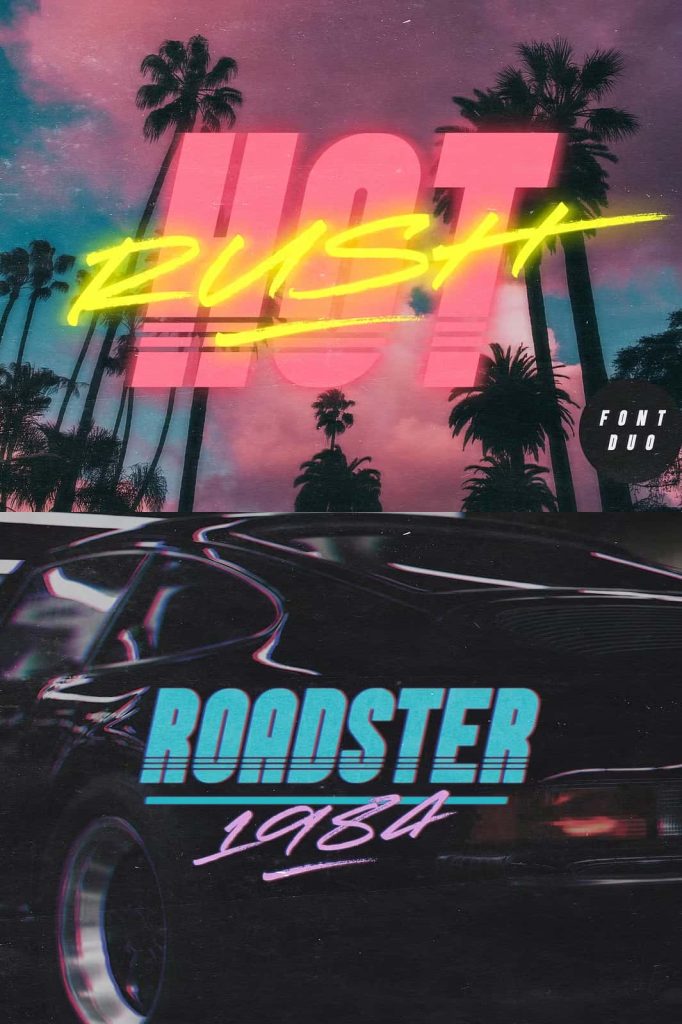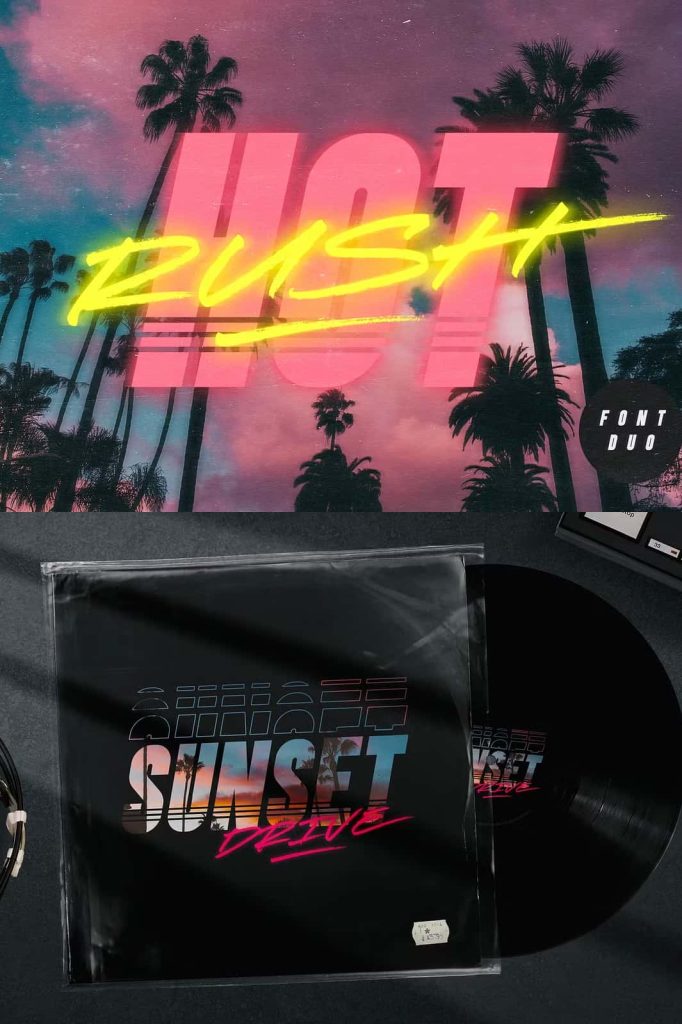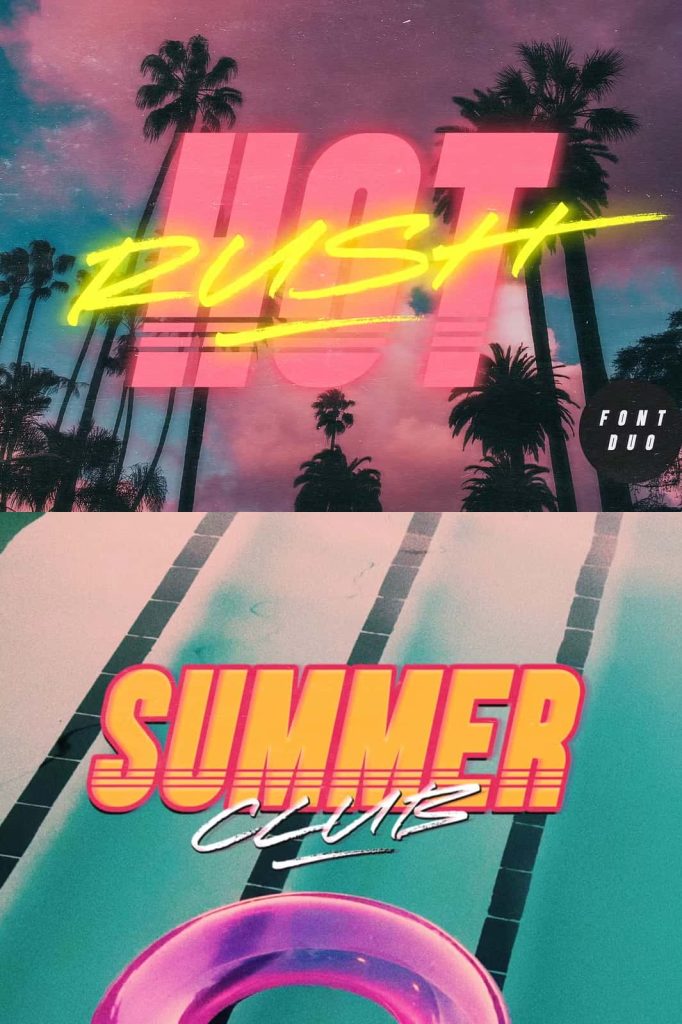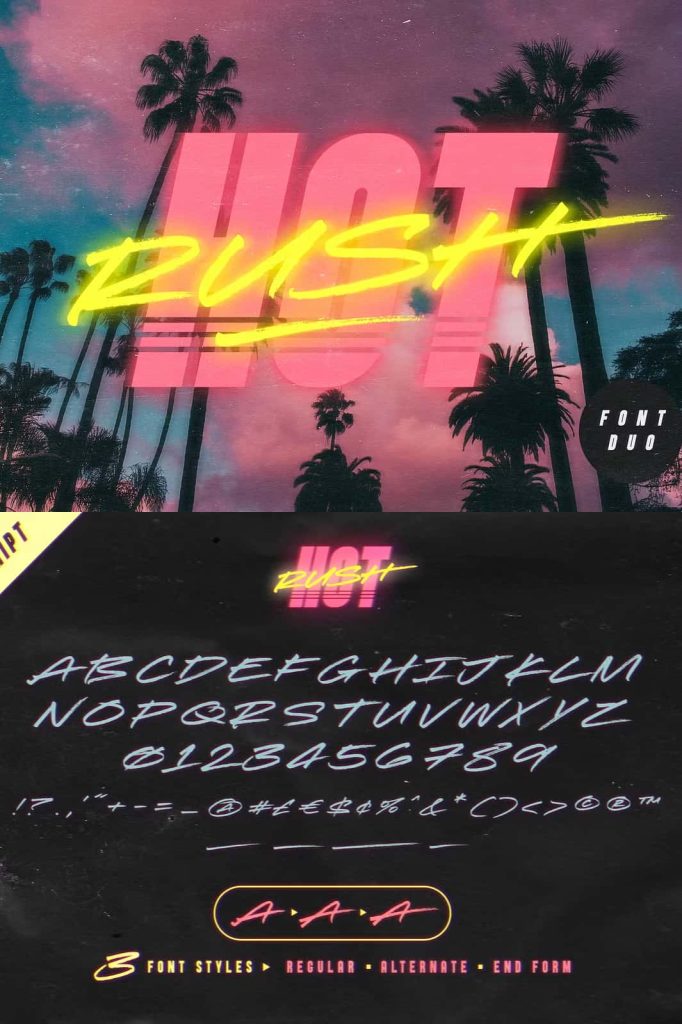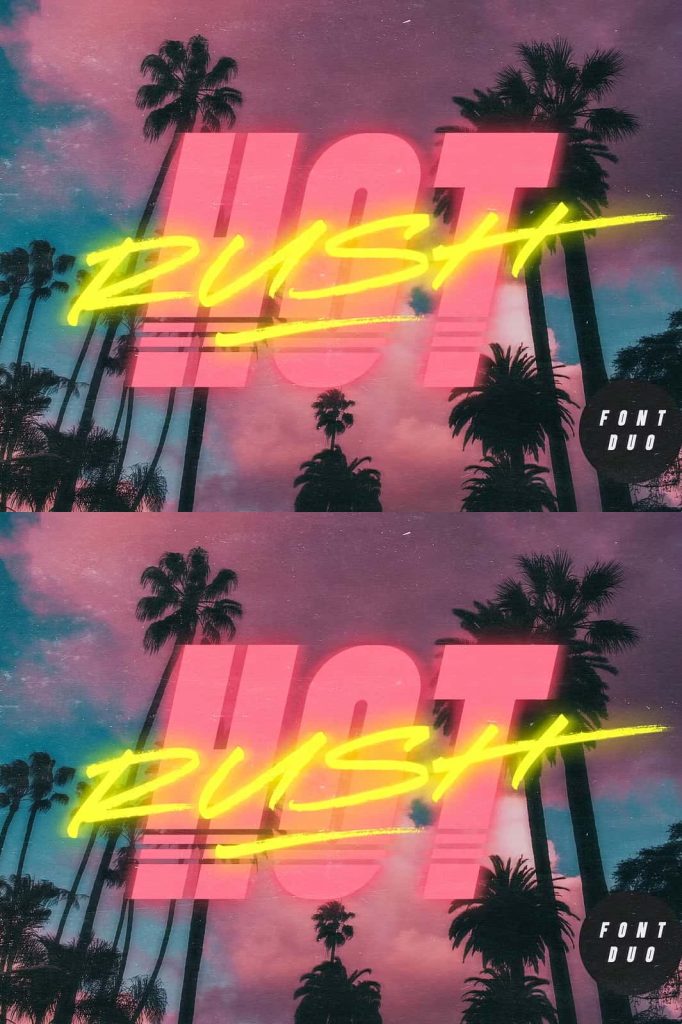
Hot Rush – A High-Energy 80s Inspired Font Duo
Hot Rush is a powerful font duo that captures the speed, attitude, and visual excitement of 1980s design. Built for creatives who want to channel retro energy with modern precision, this typeface combination delivers instant impact. Hot Rush blends nostalgia with bold execution, allowing designers to create typography that feels dynamic, confident, and unforgettable.
Retro Inspiration with Modern Performance
The spirit of the 1980s lives strongly within Hot Rush. Inspired by neon lights, fast cars, arcade graphics, and bold cinematic titles, this font duo brings that era’s visual language into today’s design landscape. Rather than relying on clichés, Hot Rush refines classic retro elements and reshapes them for professional, modern use.
This font duo is designed to feel fast and energetic, reflecting the decade’s obsession with speed and innovation. Every letterform pushes forward with intention, making Hot Rush ideal for projects that demand motion, excitement, and a strong visual identity. The result is typography that feels alive and ready to move.
A Perfect Match: Sans Serif and Script
Hot Rush combines two distinct styles that were clearly designed to work together. The sans serif font delivers a clean, condensed structure that feels sharp and controlled. Its narrow proportions and strong vertical lines create a solid foundation, making it perfect for headlines, logos, and bold typographic layouts.
Complementing the sans serif is a striking script font with long, fast, and textured strokes. This script adds motion and personality, introducing a sense of speed and spontaneity to the overall design. The contrast between the clean sans and the expressive script creates visual tension that keeps typography exciting and engaging.
Clean Condensed Sans for Strong Impact
The sans serif style in Hot Rush is built for clarity and power. Its condensed form allows designers to fit bold messaging into compact spaces without sacrificing readability. This makes it especially effective for posters, packaging, headlines, and branding materials where space and impact matter.
With its clean geometry and confident structure, the sans serif anchors the design and ensures that key messages remain clear. It works exceptionally well in uppercase settings, delivering a commanding presence that instantly captures attention.
Fast Textured Script for Energy and Motion
The script font in Hot Rush brings the energy of speed and movement into your typography. Its long strokes and textured details evoke hand-painted lettering and racing aesthetics, adding authenticity and character. This script feels raw and expressive, making it ideal for accents, taglines, and emphasis words.
When paired with the sans serif, the script creates a layered typographic experience that feels dynamic and intentional. Designers can use the script to break rigidity, add emotion, and introduce a sense of flow that enhances the overall composition.
Designed for Bold Branding and Display Use
Hot Rush excels in projects that require a strong visual statement. It works perfectly for logos, album covers, event posters, apparel graphics, and retro-inspired branding. The font duo adapts easily to both print and digital formats, maintaining its impact across screens, signage, and promotional materials.
This typeface combination allows designers to build hierarchy and contrast without introducing additional fonts. By using the sans serif for structure and the script for energy, Hot Rush streamlines the design process while delivering bold and expressive results.
Bring Speed, Style, and Nostalgia to Your Designs
Hot Rush is more than a retro font duo; it is a design tool built to evoke emotion and movement. By combining a clean condensed sans with a fast, textured script, it empowers creatives to produce work that feels powerful, nostalgic, and modern all at once. Whether you are designing for branding, advertising, or display typography, Hot Rush delivers the speed and style needed to make your message stand out.